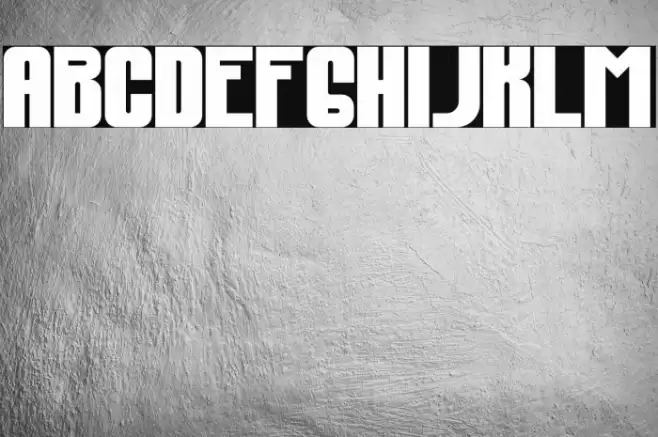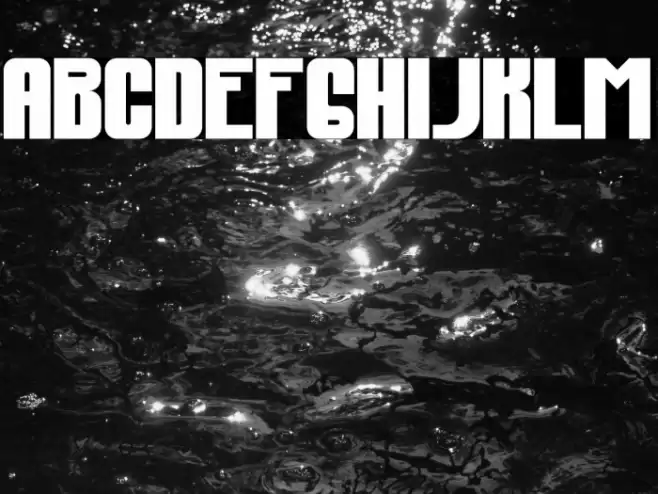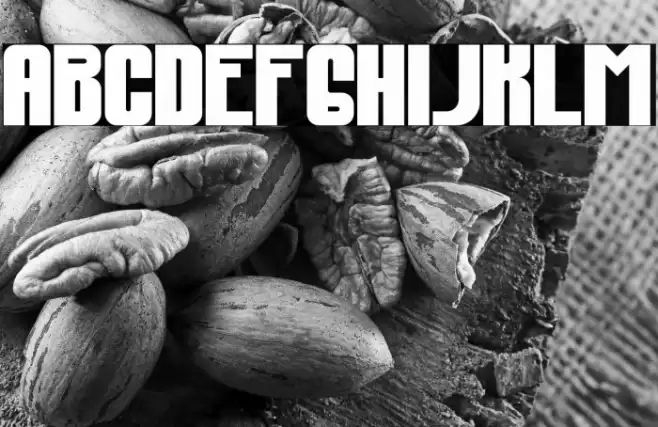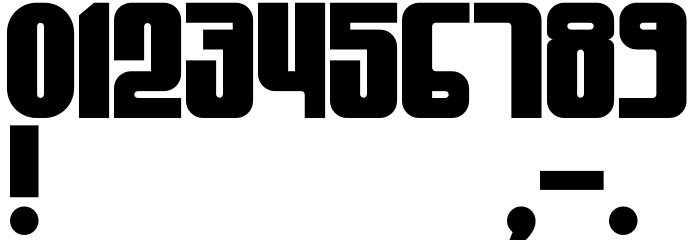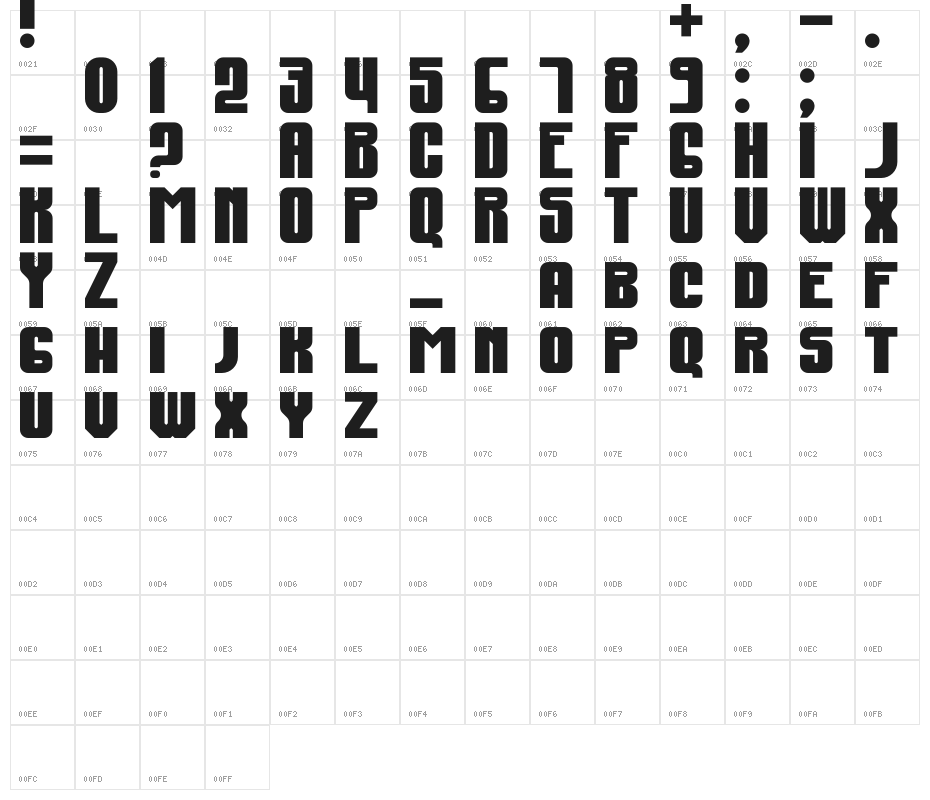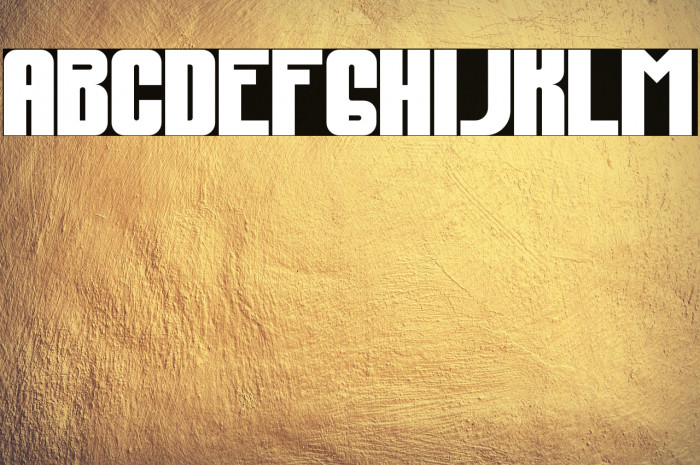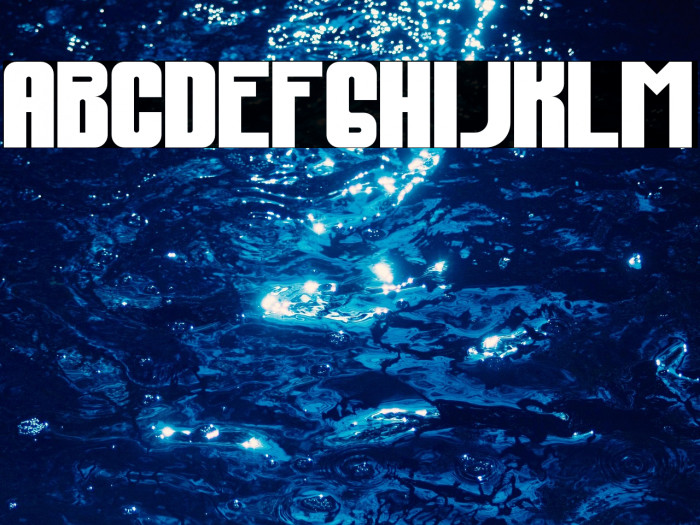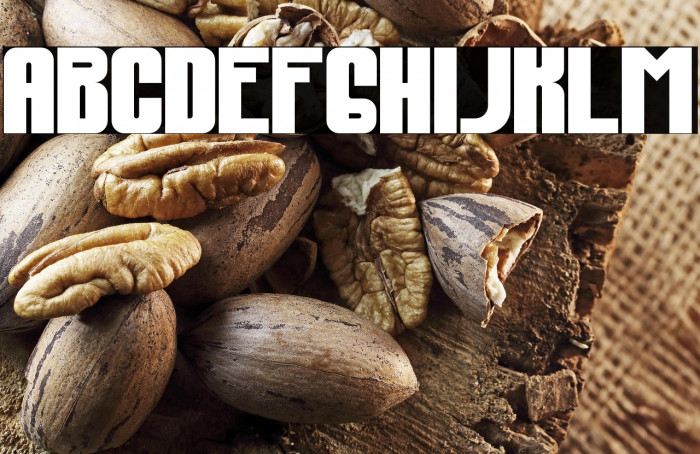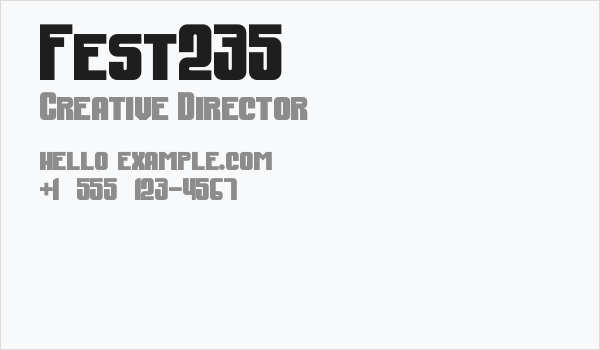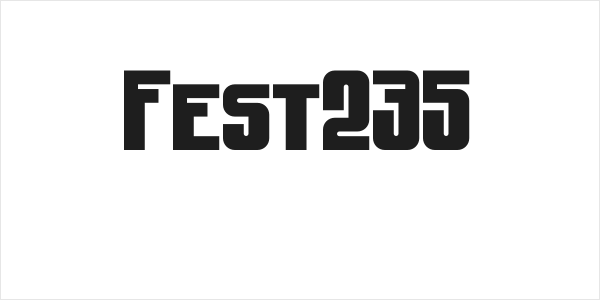
Fest235 Font
Fest235 Description
This font features a bold and striking design with thick, block-like characters that convey a sense of strength and impact. The uppercase letters are uniform in height, creating a cohesive and structured appearance. The lowercase letters maintain the same boldness, ensuring consistency across all text. Numbers and special characters are designed with the same robust style, making them easily legible and visually appealing. The overall design is modern and geometric, with sharp edges and a strong presence that demands attention.
Bold, geometric font with a strong, impactful presence from Thick fonts.
- Proposed Projects: Ideal for posters, headlines, branding, and any project requiring a bold statement.